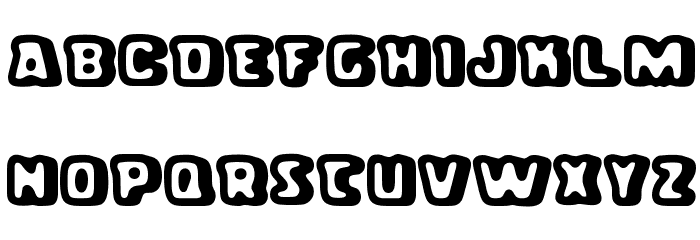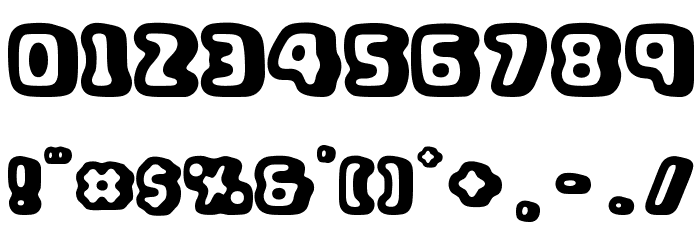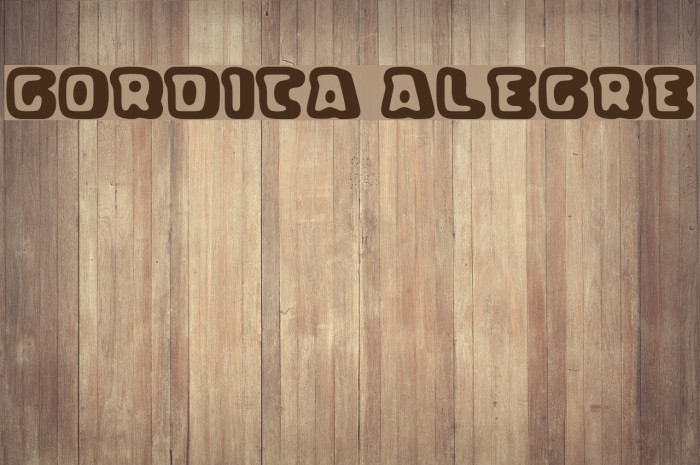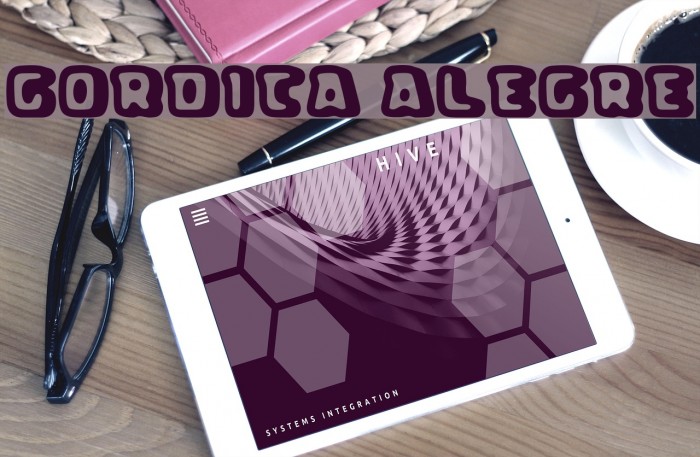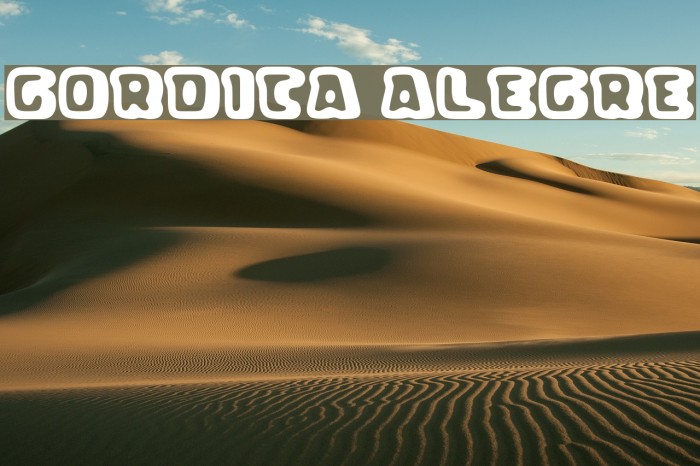
Gordita Alegre Font
This playful and bold font features thick, rounded characters with a bubbly appearance. Each letter is outlined, giving it a three-dimensional effect that makes it stand out. The characters are uniformly wide, with a consistent stroke thickness that adds to the font's cohesive look. The overall style is fun and whimsical, making it ideal for projects that require a lively and energetic feel. The numbers and special characters maintain the same playful design, ensuring a harmonious look across all text elements.
A bold, playful font with rounded, outlined characters and a whimsical style.
- Proposed Projects: Ideal for children's books, playful branding, party invitations, and creative posters.
- Overall Style: Playful, Whimsical